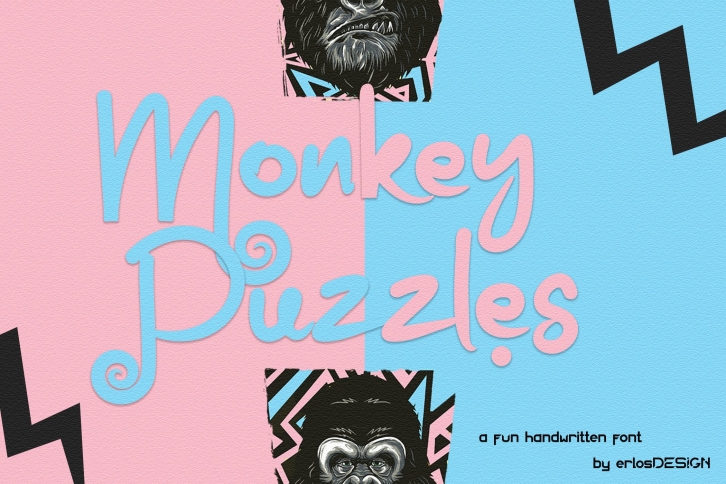
Monkey Puzzles is a beautiful font that was designed by erlosDESIGNS. It's a great choice for designers and creatives who need such a font. It was released on August 6, 2020 and the file size is 9.65 MB. Monkey Puzzles may give a more youthful, expressive and casual look to your project. It is a very beautiful, refined, elegant, and high-quality font.